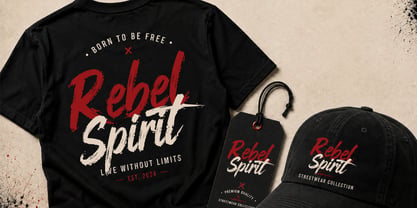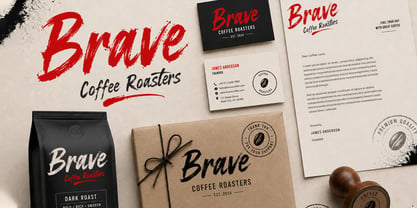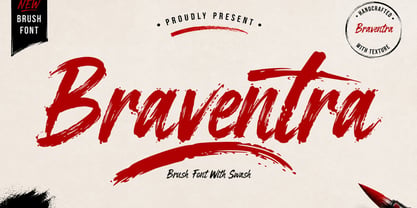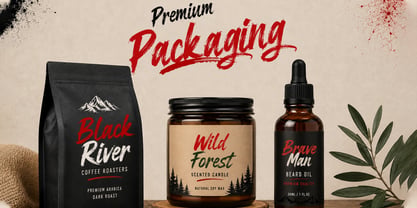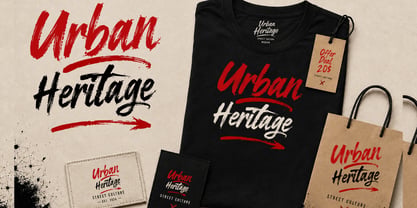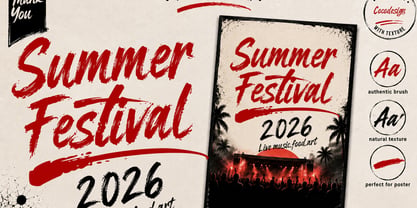
Braventra
por Cocodesign
La familia tipográfica Braventra fue diseñada por Muhammad Zaini y publicada por Cocodesign. Braventra contiene 2 estilos y opciones de paquete familiar. Más información sobre esta familia
Braventra is a bold and expressive dry brush font that embodies the raw energy of hand-painted brush strokes. Each character is meticulously crafted with a natural texture, resulting in an authentic handcrafted appearance while ensuring excellent readability. Designed for creatives seeking a strong visual impact, Braventra is ideal for branding, apparel, packaging, posters, social media, advertising, and editorial design. Its dynamic brush texture infuses personality and movement into your projects, making every headline truly stand out. Featuring uppercase and lowercase letters, numbers, punctuation, multilingual support, and stylish swashes, Braventra offers the versatility needed to create unique and professional typography for a diverse array of design projects.
Diseñadores: Muhammad Zaini
Fundición: Cocodesign